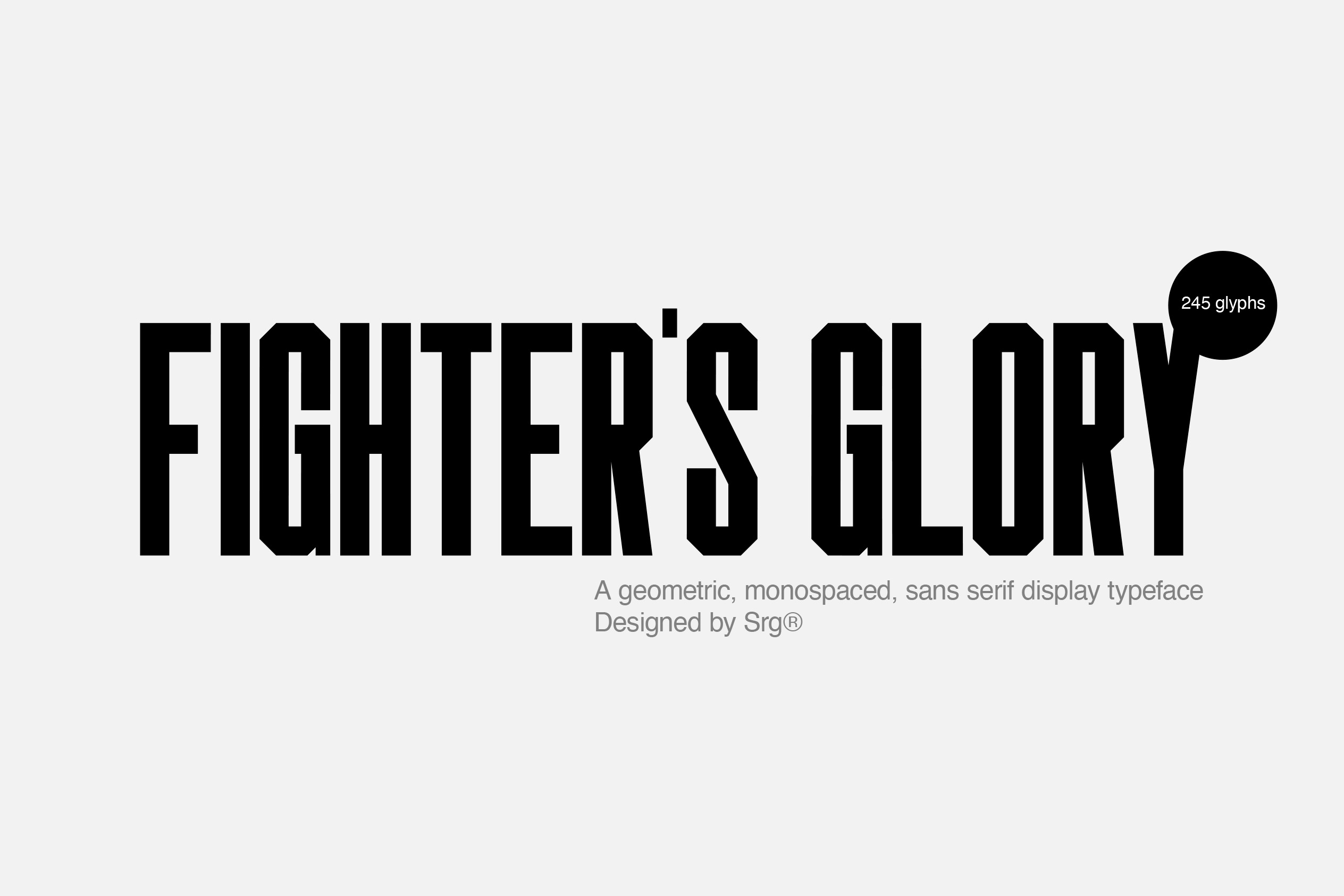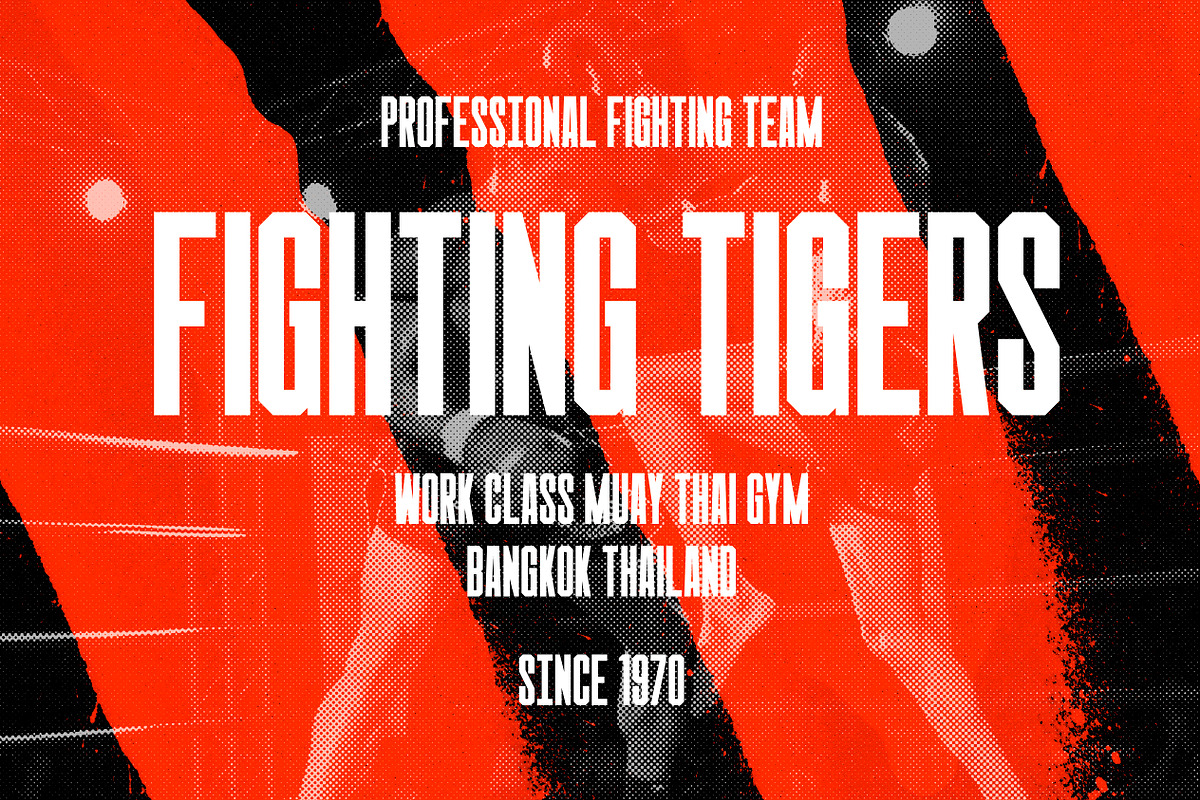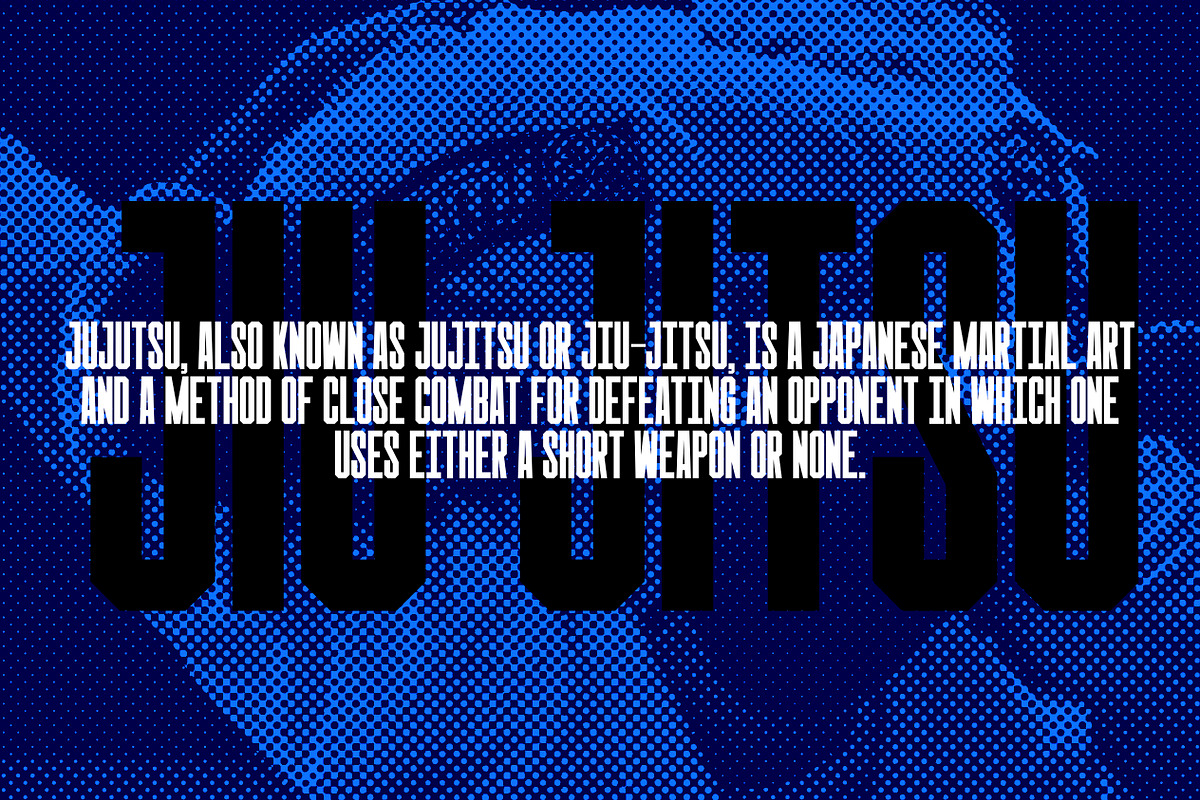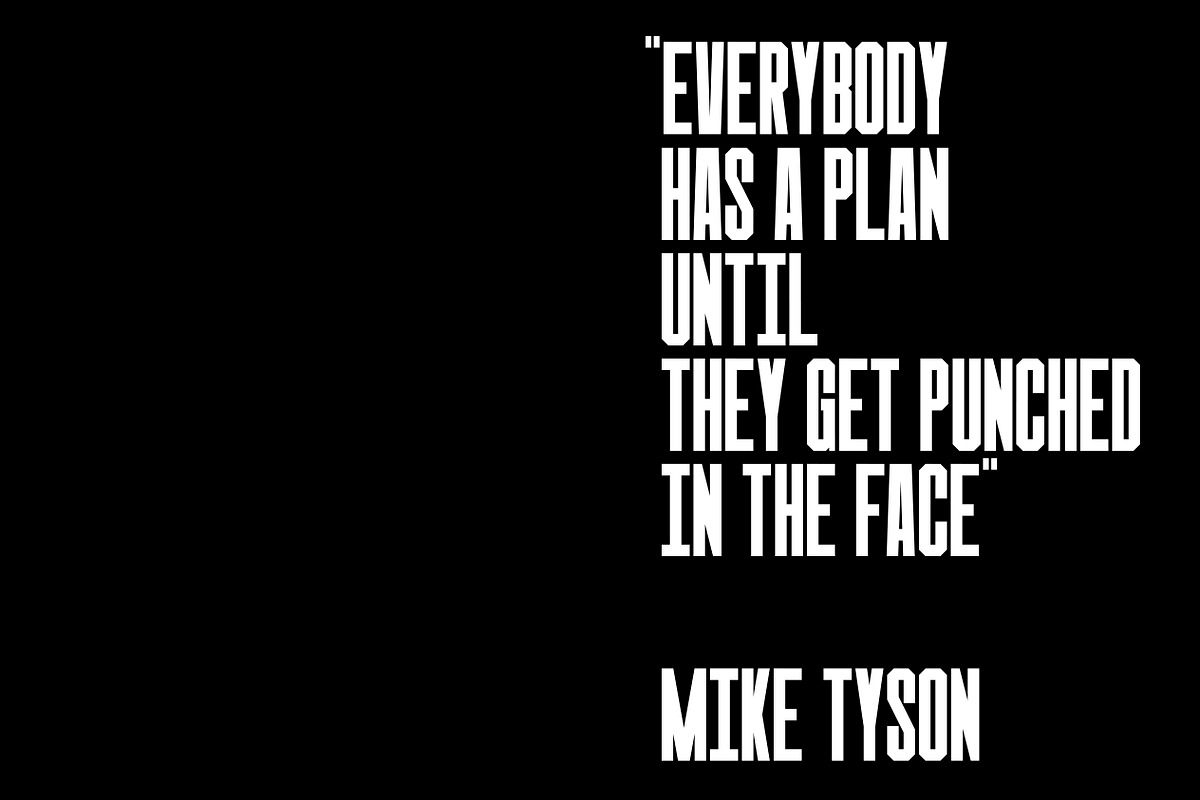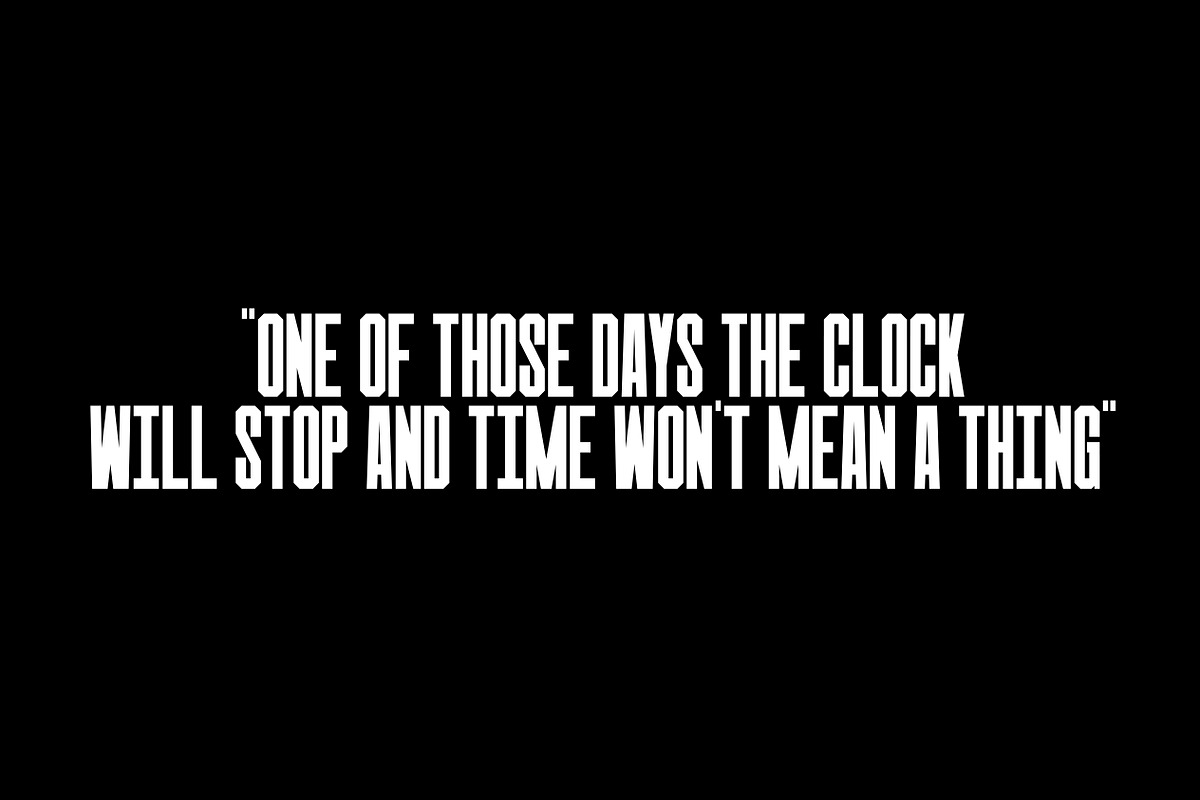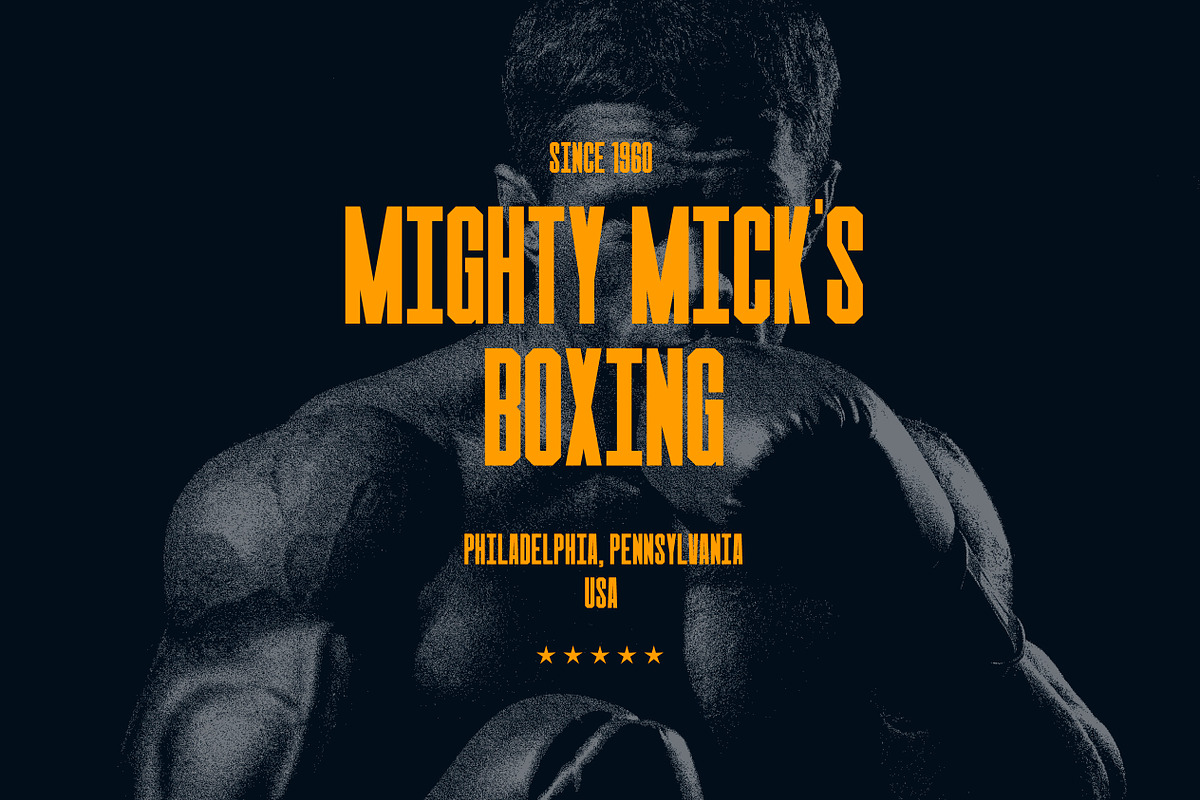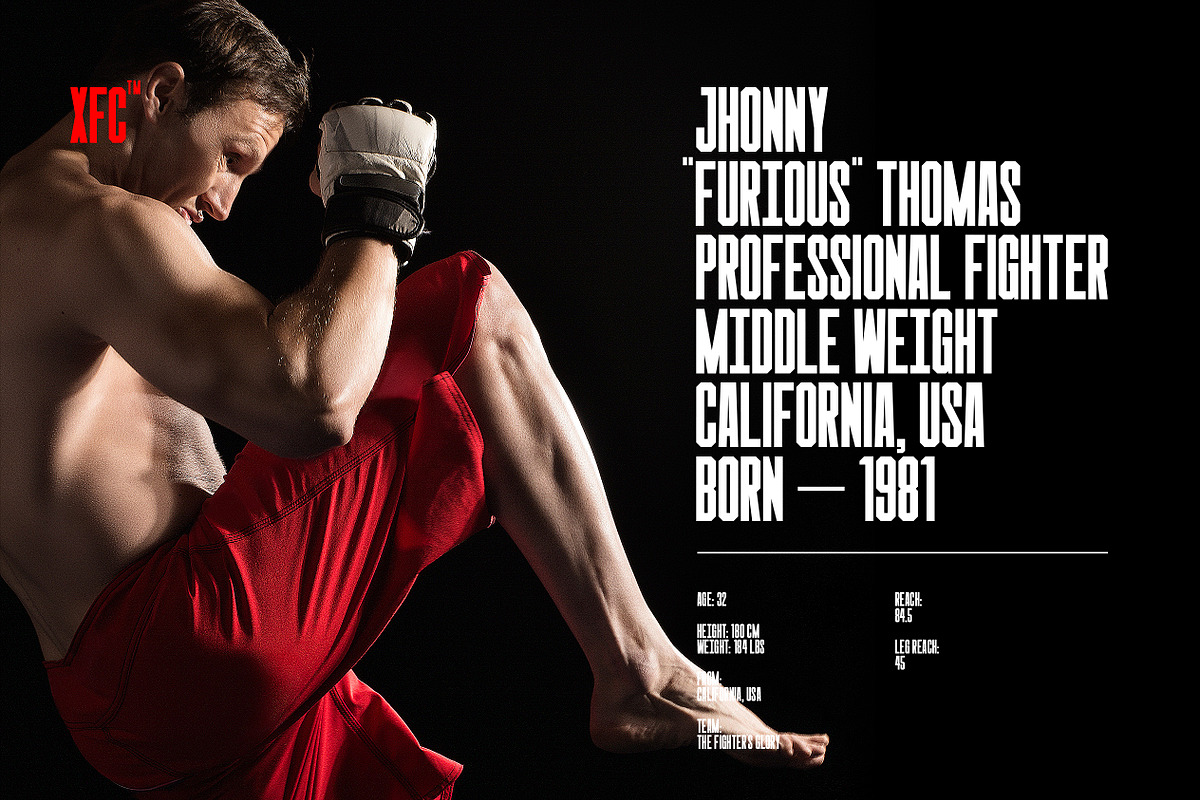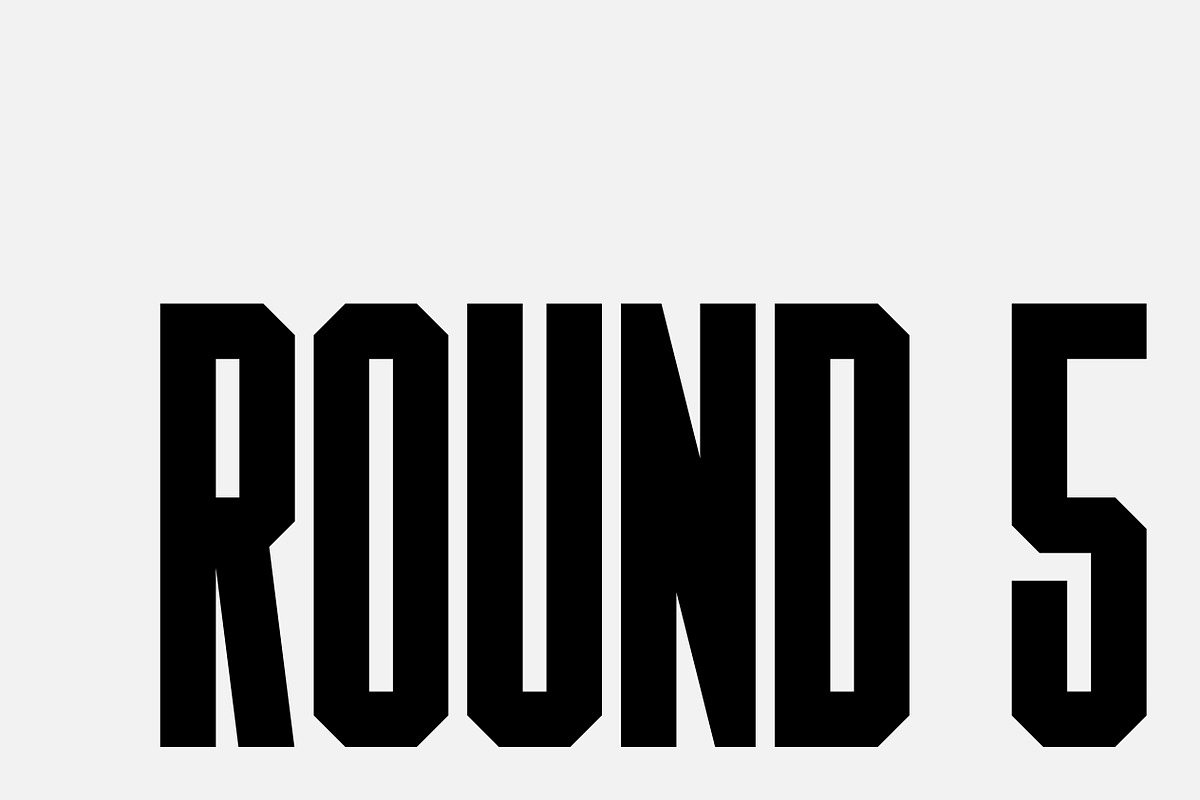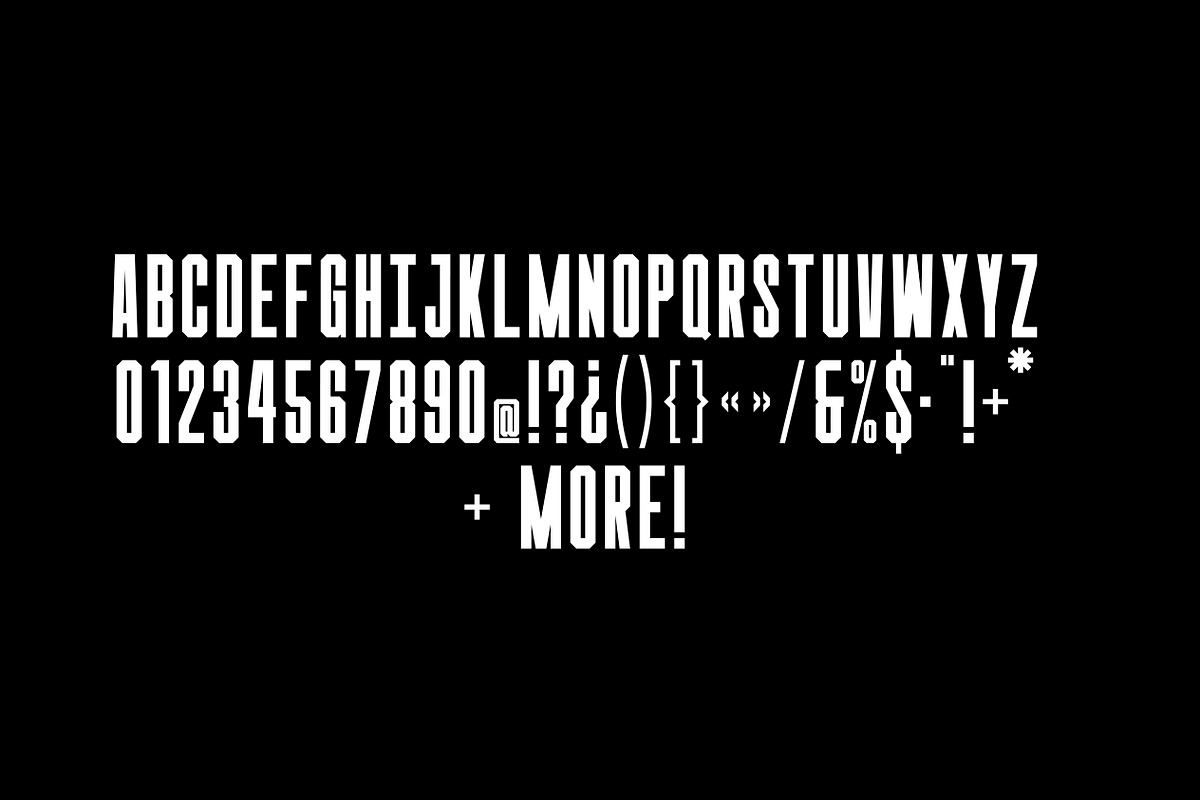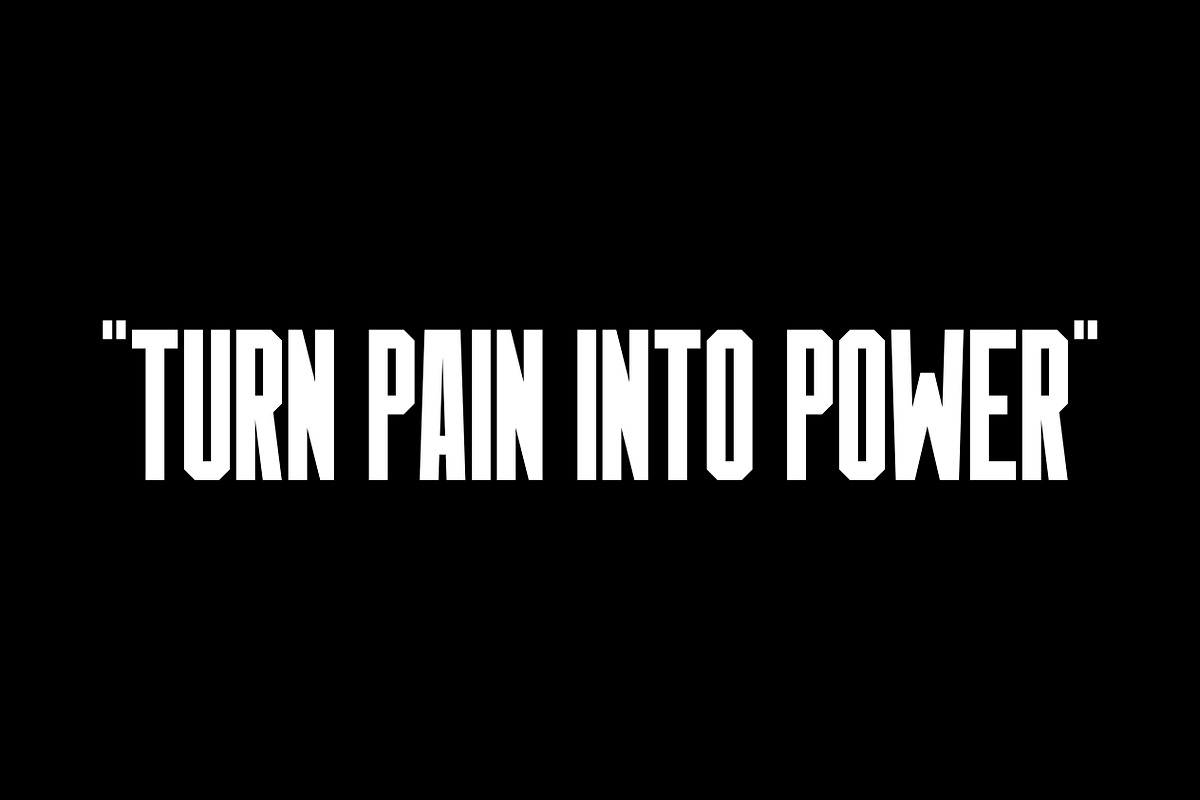
Srg-Fighters Glory display font
A geometric & block based typeface inspired by vintage fight ads,
Specifically designed for display use, great for titles, logotypes, monograms and short texts, it includes 211 glyphs, ASCII / ISO 8859-1 (Latin-1)